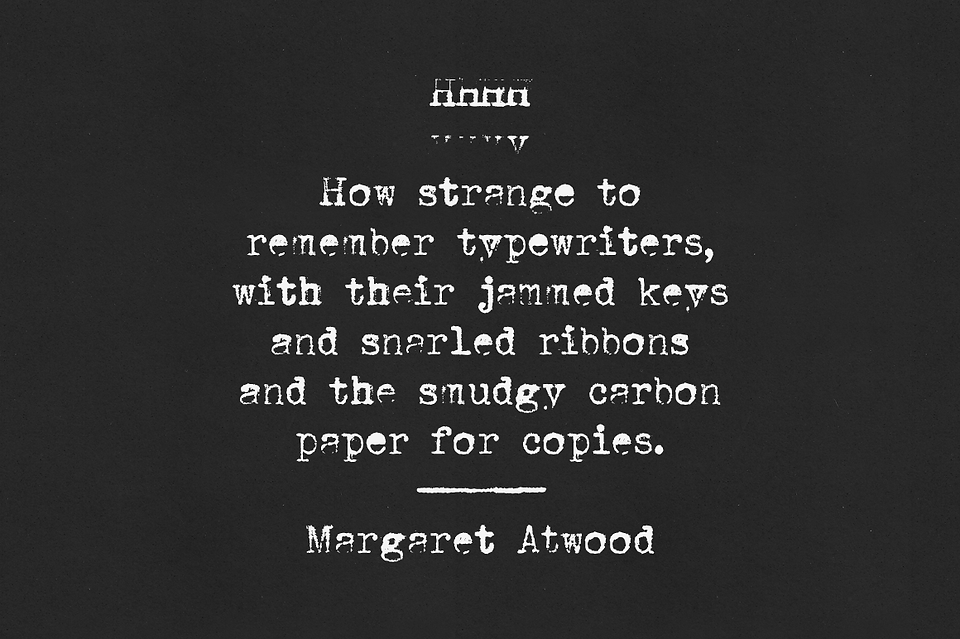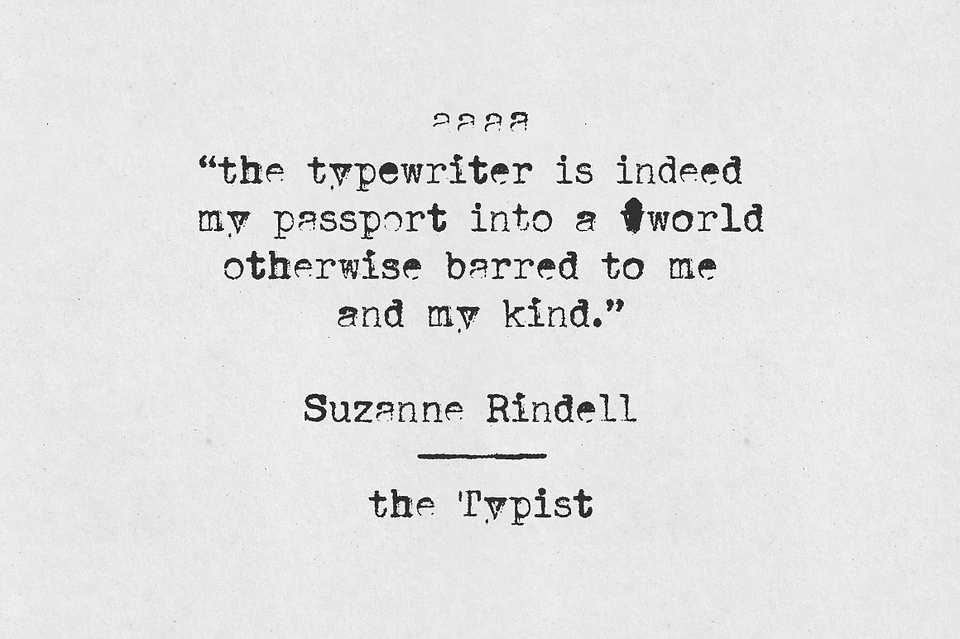
New font! Mystery Typewriter (& fundraiser)
Here is my new font, Mystery Typewriter, a realistic typewriter font with bonus misprints and seamless textures.
Mystery Typewriter
This typewriter font was made using a real typewriter, and is perfect for:
Adding an authentic feel to your retro and vintage designs. It will look great in logotypes and branding, packaging, editorial and website design in both titles and text, social media posts, posters and billboards, handmade postcards and tags.
Writing your own mystery stories, while pretending you are Jessica Fletcher sitting down at her typewriter.*
Solving real-life mysteries.*
*Not guaranteed to work